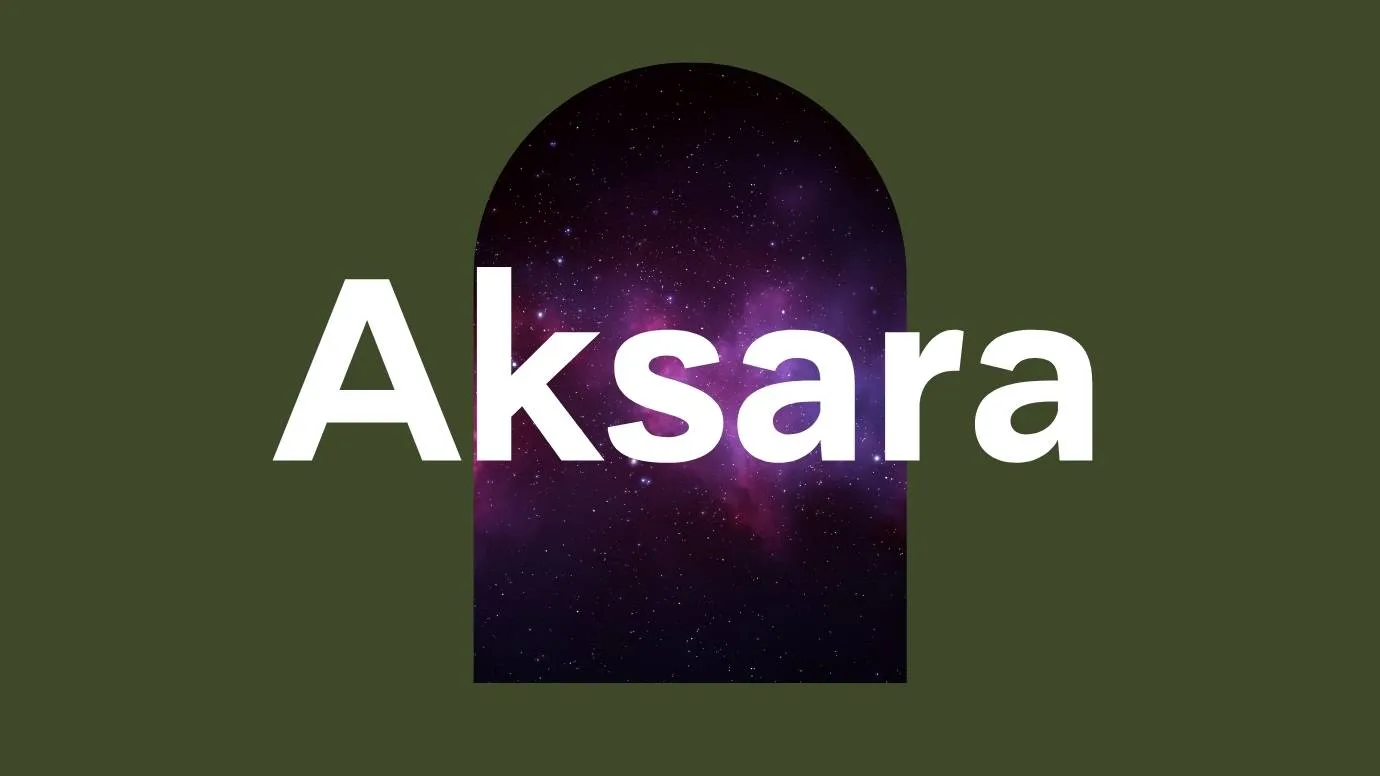
Aksara Font Family is a modern typeface that comes in the sans serif family. Anugrah Pasau is a very intelligent designer who creates the Aksara typeface and publishes it through Lafontype Foundry.
It is appropriate for pairing with its alternative font like the bud light logo font which comes in the sans serif family. This stylish font family has a soft and clean look that makes it more beautiful.
Aksara Font